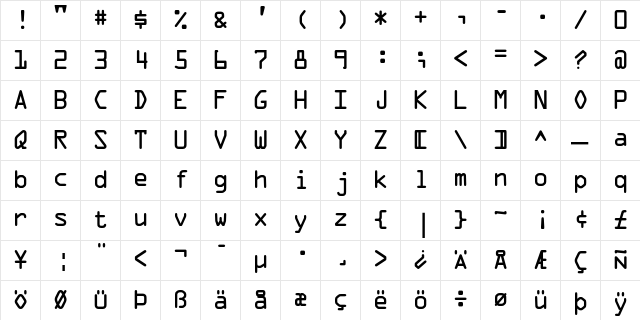
Complete OCRA Alternate glyph index. Displaying only characters natively supported by OCRA Alternate font.
OCRA is a composed and adaptable typeface that performs quietly and consistently across a wide range of design contexts.